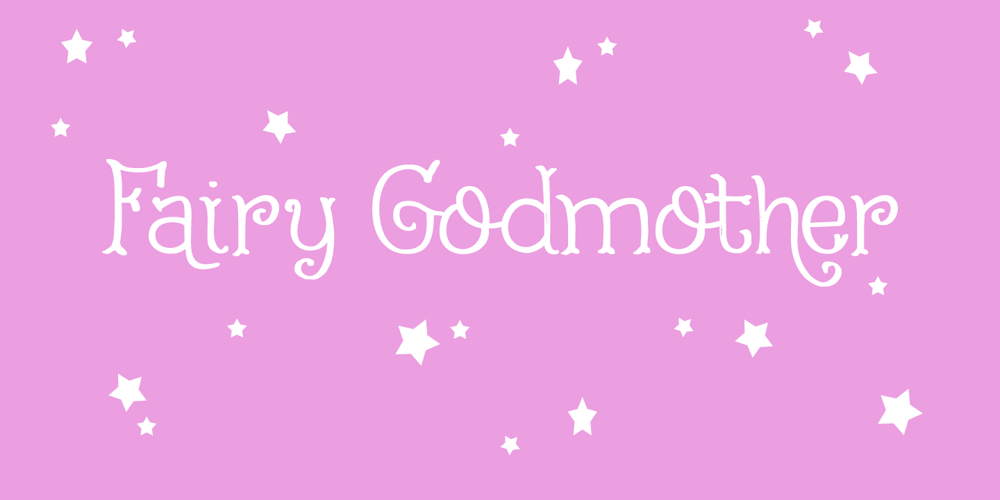
Fairy Godmother Font Family was designed by David Kerkhoff and published by Hanoded. Fairy Godmother contains 2 styles and family package options. I like ‘magical’ fonts and it’s been a while since I created one, so here is Fairy Godmother. Hand made, cute and curly and full of magic!